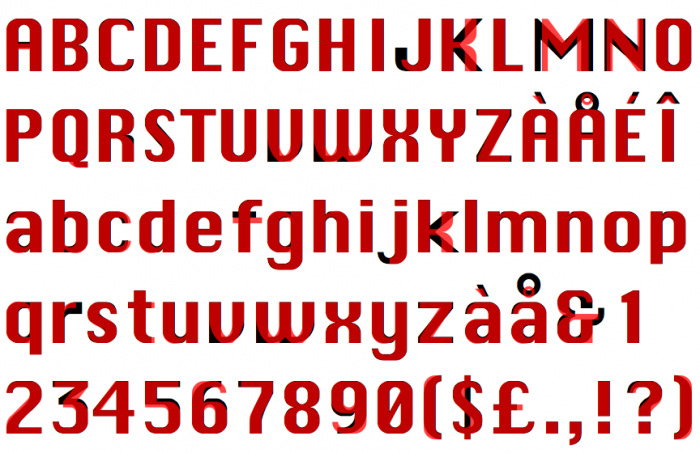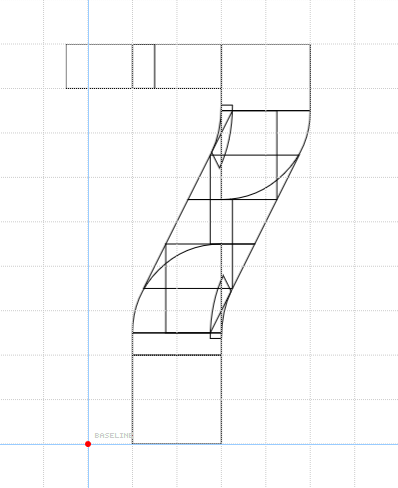
Comparison
Very cool update. The maturity of fontstruct to allow for such a close recreation is obvious to those who use it and transparent to everyone else. You can't ask for more of a design tool.
Pretty nice font recreation once again, yautja…
I remember Chicago from my first MacIntosh. Good version. I like some of your decisions more than others, which I think are not so successful, but the overall result deserves my 10. Congrats.
@V. Sarela (Yautja) - I know it may sound strange coming from me, but I actually like seeing non-pixel versions of pixel fonts.  You've done a great job with this one.  :^)
@V. Serela (Yautja) Nice Font You Done Pixel Fonts Great Job :^)
I like this one more than the original Chicago =)
me too, this is much prettier than the original!
This is very very close to the original! Good job!
All letters are pretty good except for the lowercase R. (I loved the Chicago lc R more)
Can you Show the outlined bricks of Number 7 glyph?